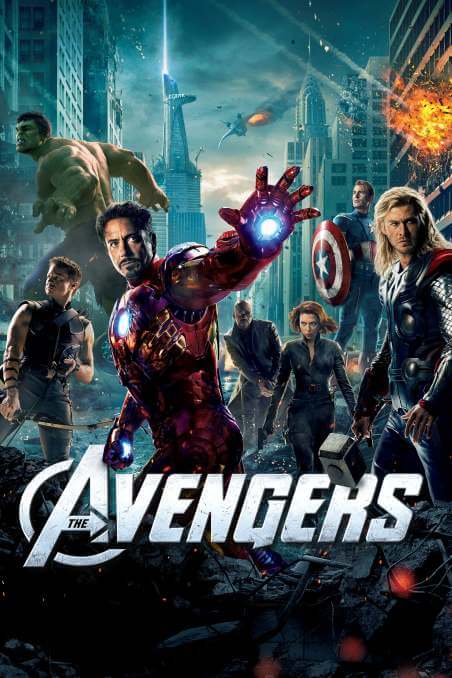
Avengers Font
The Avengers is a 2012 American superhero film based on the Marvel Comics superhero team. The film was released on April 25, 2012 internationally and on May 4, 2012 in the US. The film follows Nick Fury, the director of S.H.I.E.L.D., as he recruits Iron Man, Captain America, the Hulk, Thor, Black Widow, and Hawkeye to form a team that must stop Loki and his alien army from enslaving humanity. The font is available in all caps, licenced as free for personal use and is free to download. Click the above link to download avengers font.